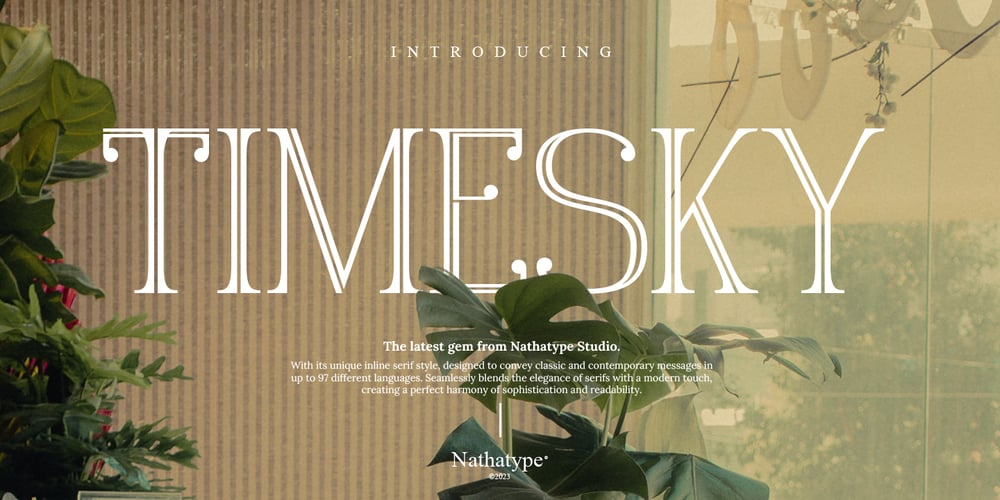
Timesky Font Family was designed by Donis Miftahudin and published by Nathatype. Timesky contains 1 styles and family package options. Experience the timeless allure of Timesky, a serif font that effortlessly blends classic elegance with a modern sensibility. The generous spacing between characters ensures that your text breathes, This ample spacing not only enhances legibility but also lends a feeling of modernity to your design. On the other hand, the inline style brings a sense of depth and dimension to the font, creating a captivating visual. Timesky fits in headlines, branding materials, print media, and many more.